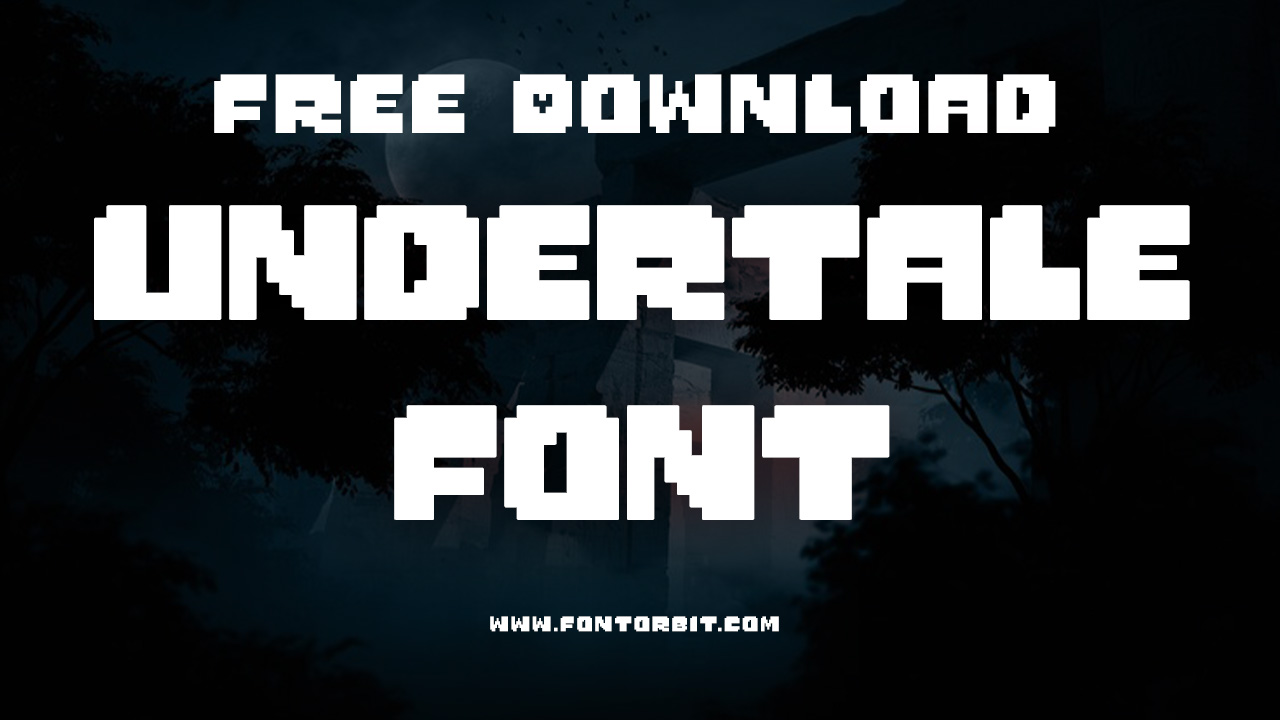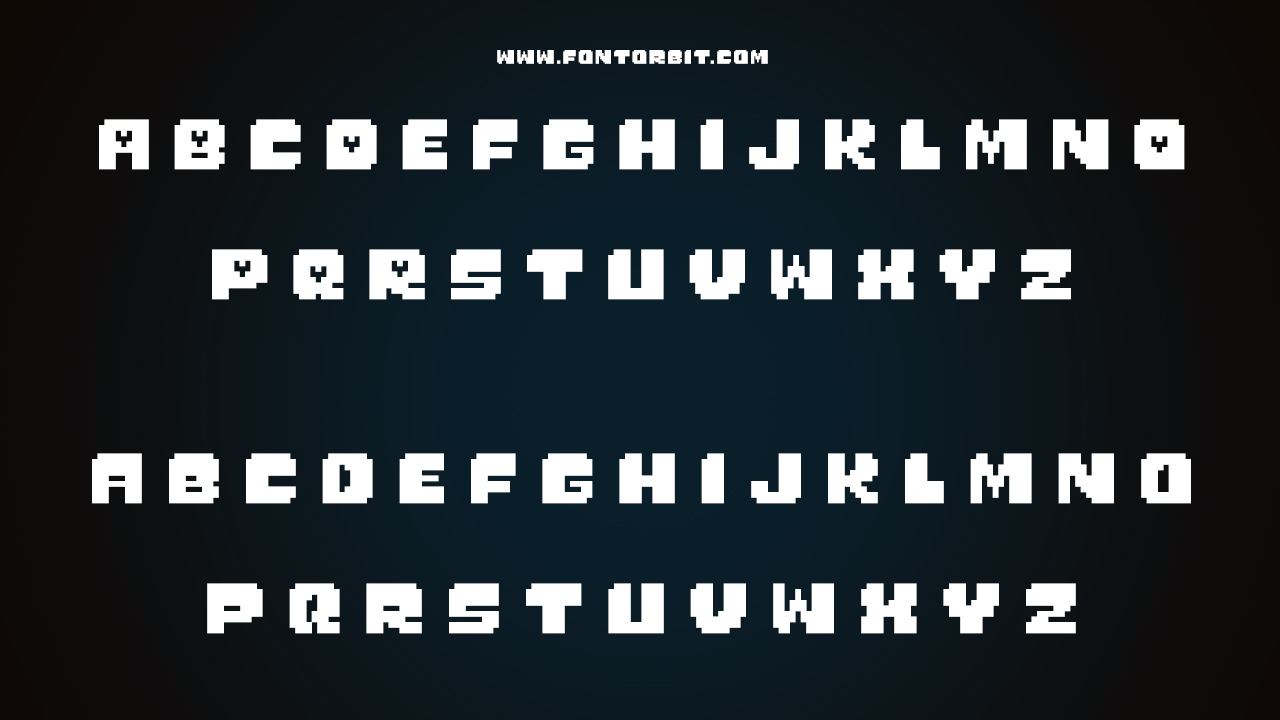
Undertale Font is a unique, pixelated typeface inspired by the popular indie game Undertale. The game logo features a pixelated font, similar to Monster Friend, designed by Harry Wakamatsu from Japan. Designed to capture the retro aesthetic of gaming, it offers a distinctive look that is perfect for both text and display uses.
Type Of The Undertale Font (Font Family)
The Undertale Font falls into the category of display typefaces, characterized by its pixelated design that mirrors the game’s graphics. It is particularly known for its versatility and nostalgic appeal. The font family includes:
- Monster Friend Fore
- Monster Friend Back
Undertale Font is ideal for adding a playful touch to various projects. Its unique design makes it well-suited for:
- Game logos
- Merchandise graphics
- Promotional materials
- Fan art
The Undertale Font Found In Use
Undertale Font is a contemporary display typeface perfect for a variety of creative uses. It’s ideal for making game logos stand out, enhancing merchandise, and adding a nostalgic touch to any design project. Whether for personal or commercial use, Undertale Font is a versatile choice that brings a fun, retro edge to your work.
1.What Are The Characteristics Of Undertale Font?
Undertale Font is a pixelated display typeface that captures the retro gaming aesthetic, making it ideal for various gaming-related design needs.
2.What Are The Considerations For Using Undertale Font In Branding?
Ensure the font aligns with your brand’s identity. Undertale Font is perfect for brands looking for a fun and engaging look, especially within gaming or entertainment contexts.
3.What Are The Limitations Of Using Undertale Font In Design?
Its playful design might not suit more serious or formal branding needs, as it is best used for casual, retro-themed projects.
4.What Are The Differences Between Undertale Font And Other Display Fonts?
Undertale Font features a distinctive pixelated design, setting it apart from other display fonts that may have varied stylistic elements.
5.What Do You Want From An Undertale Font?
Users typically seek a bold, playful typeface that provides a unique and engaging look for various design projects, particularly in gaming.
6.How To Create A Unique Effect With Undertale Font?
Experiment with layering styles like Monster Friend Fore and Monster Friend Back for a more dynamic logo effect, or combine it with complementary fonts for added flair.
8.What Styles Are Popular In Undertale Fonts?
Pixelated and retro styles are popular, offering a nostalgic look suitable for various gaming applications.